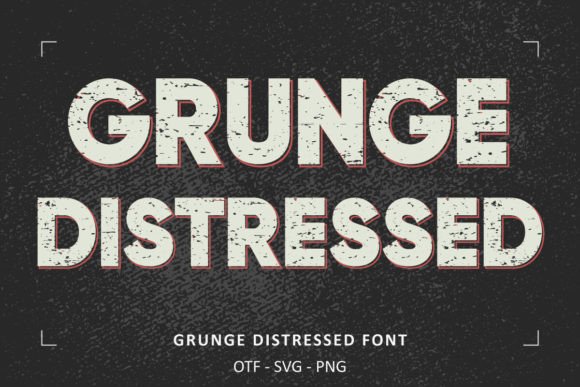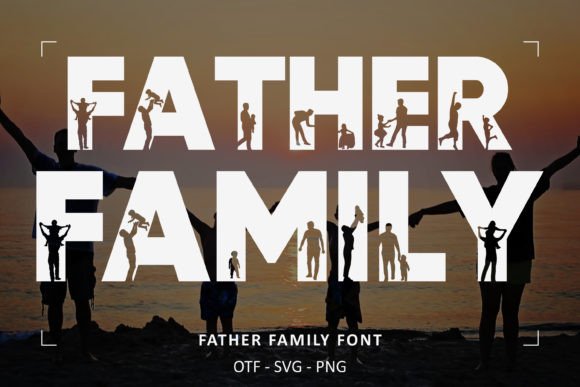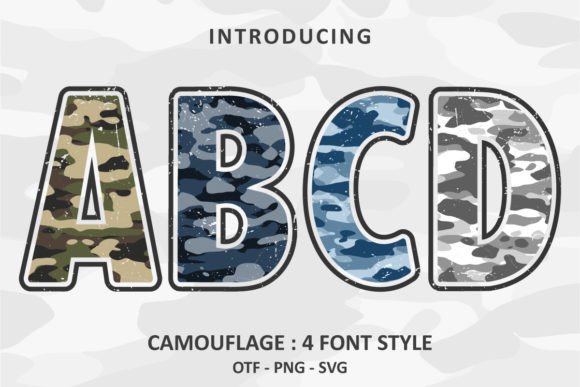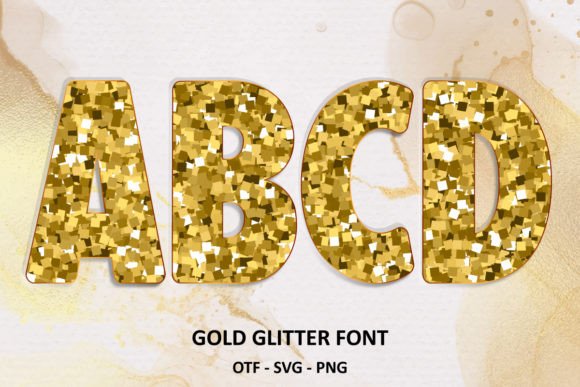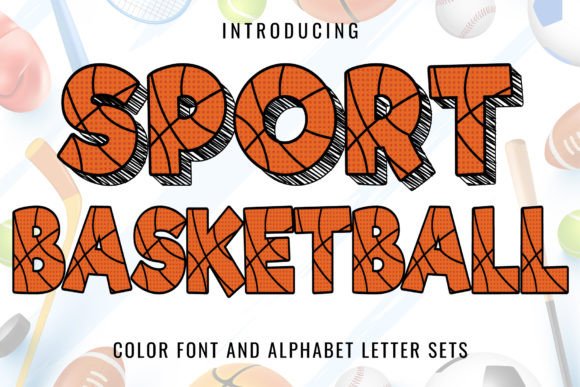
Back to School Collection Font
This Back to School Font Collection contains 26 fonts from 8 typefaces and is a fun and playful color font. It’s the perfect font for school-themed projects.
These font files are perfect for a multitude of creative projects: T-shirts, phone cases, cards, bags, mugs, stickers, tumblers, and much more.